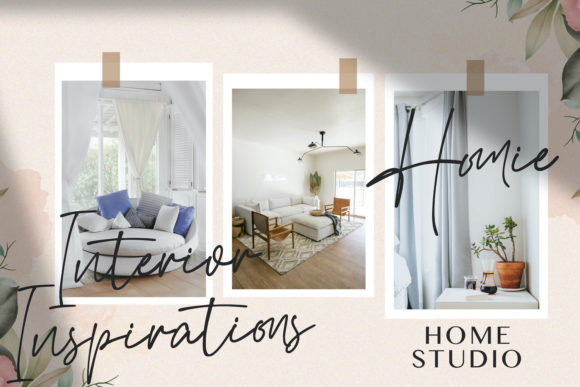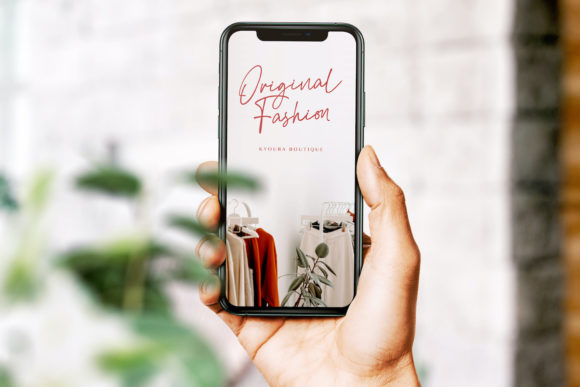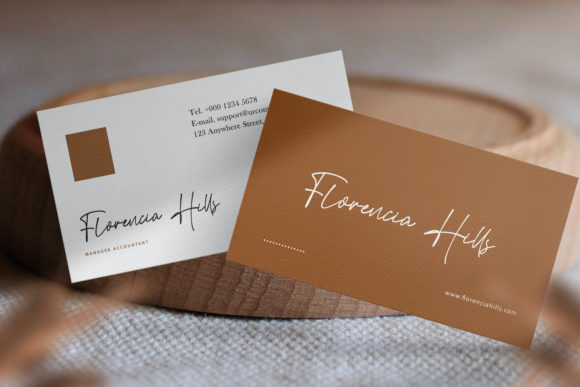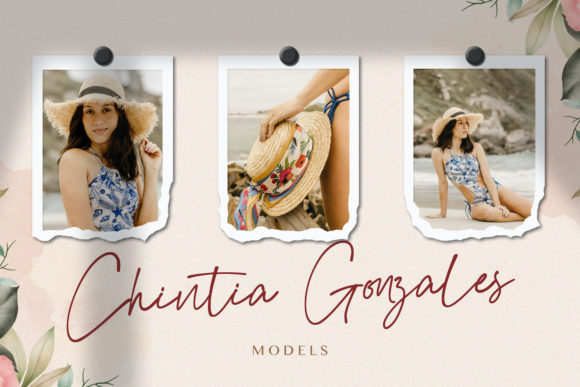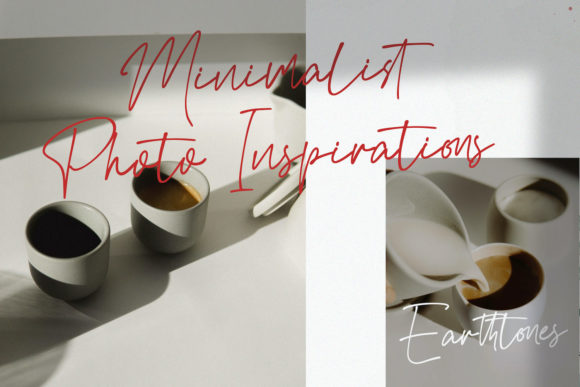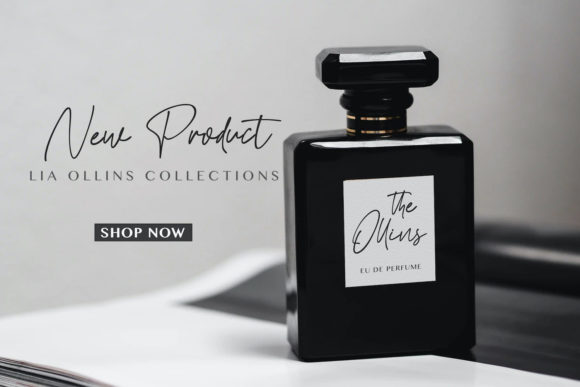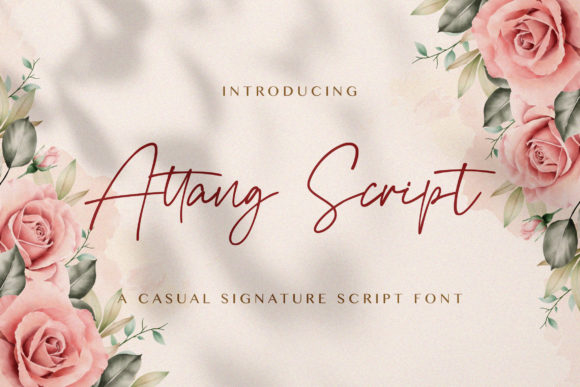
The Elusive Font: My Journey with Attang Script
I still remember the frustration of working on a design project, pouring my heart and soul into it, only to hit a roadblock: finding the perfect font. My client wanted something elegant, something that exuded class and sophistication. I scoured the internet, tried countless fonts, but nothing seemed quite right. That was until I stumbled upon Attang Script. ✨
This lovely and thin lettered script font has been a game-changer for me, and I’m excited to share my experience with you. Whether you’re a designer, crafter, or creative hobbyist, Attang Script is definitely worth getting to know.
An Honest Review of Attang Script
- ✨ Elegant and classy design that’s perfect for a variety of projects
- 💫 Beautiful, refreshing look that’s sure to make your designs stand out
- 🎨 Highly versatile and can be used for a range of applications, from wedding invitations to branding materials
While Attang Script is an amazing font, there are a few things to keep in mind: 🤔
- ⚠️ As with any script font, it may not be suitable for body text or long blocks of text
- ⚠️ Some users may find the font a bit too thin for certain applications
The Story Behind Attang Script
The story behind Attang Script is one of passion and dedication. While the actual origins of the font are unclear, it’s said that the designer was inspired by the beauty of traditional calligraphy and the elegance of handwritten scripts. The result is a font that’s both timeless and modern, perfect for designers and crafters looking to add a touch of sophistication to their work.
| Font Name | Attang Script Font |
| Author | StringLabs |
| What is Attang Script? | Attang Script is a lovely and thin lettered script font that’s perfect for adding a touch of elegance and class to your designs. |
| Is Attang Script PUA encoded? | Yes, Attang Script is PUA encoded, making it easy to access glyphs and swashes. |